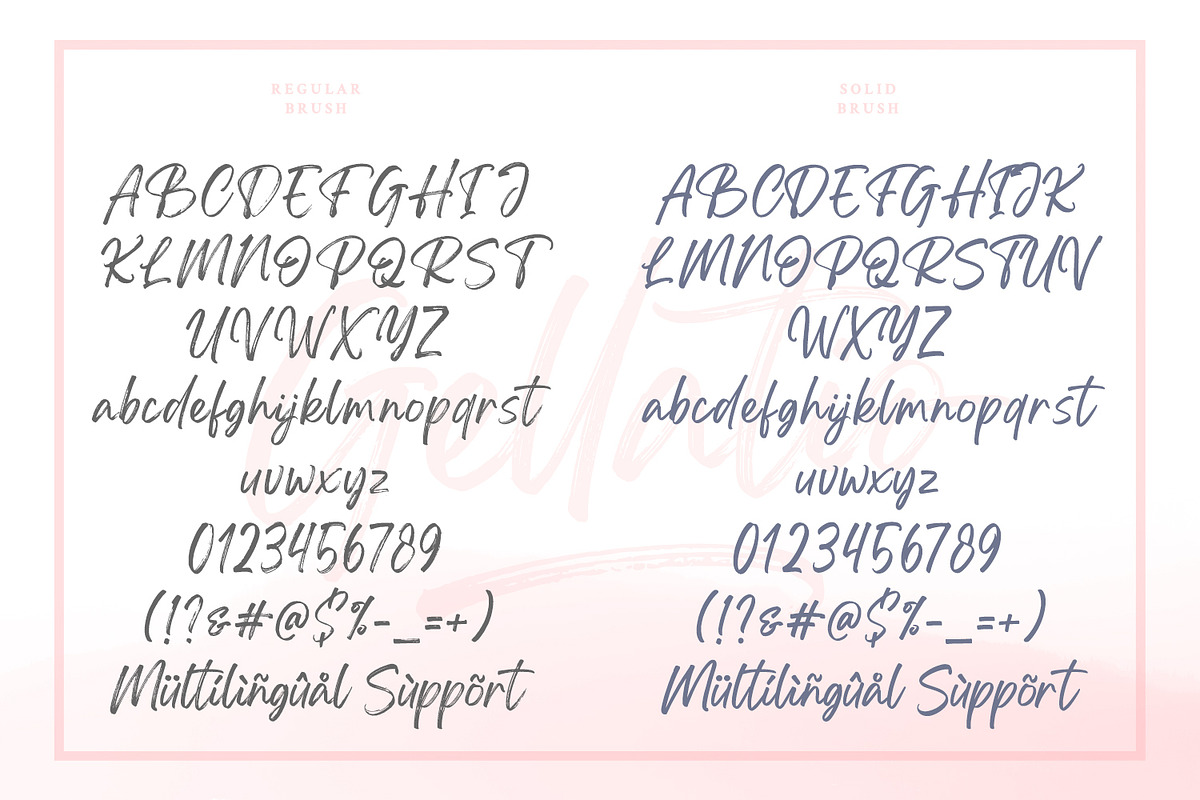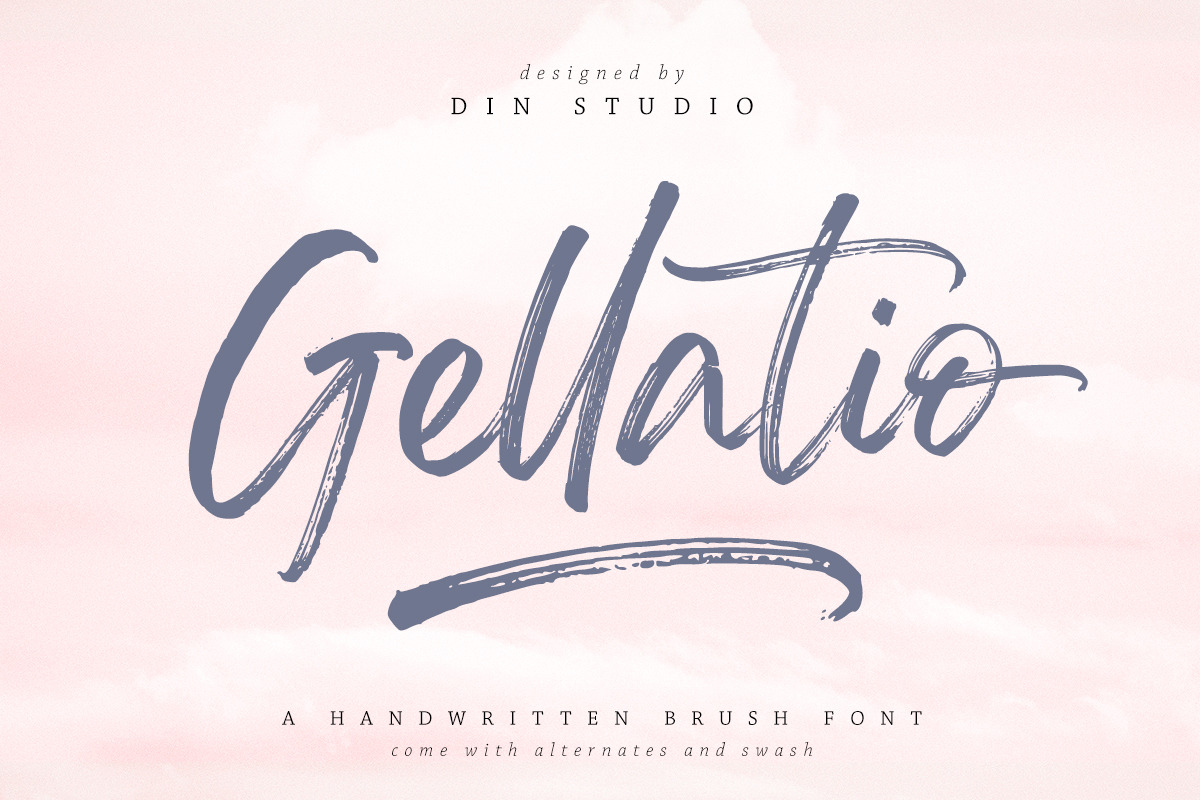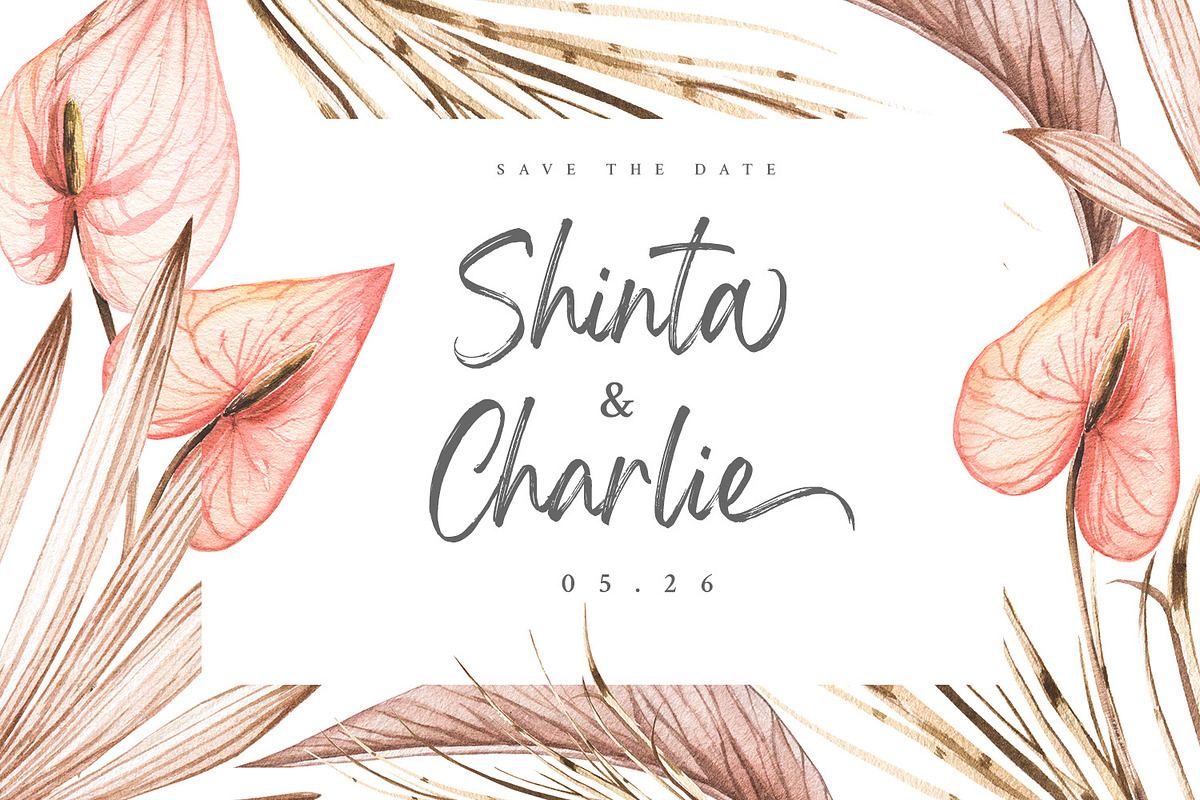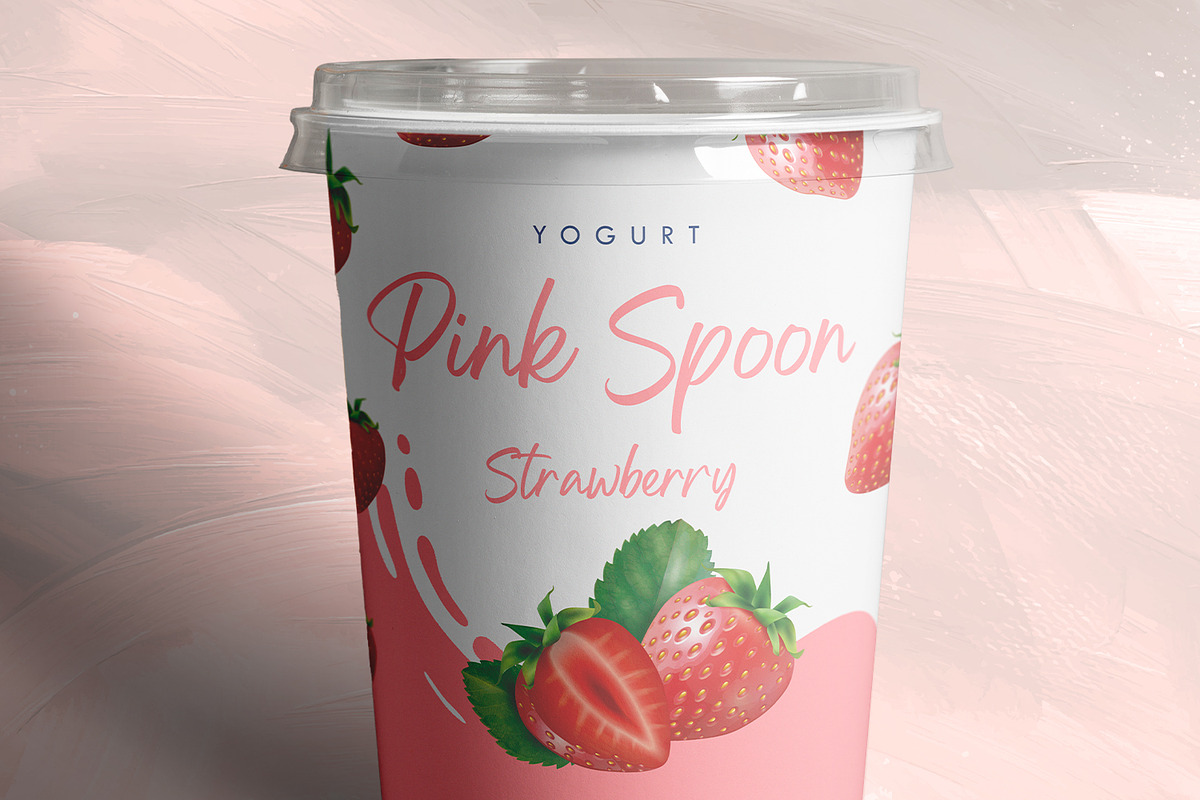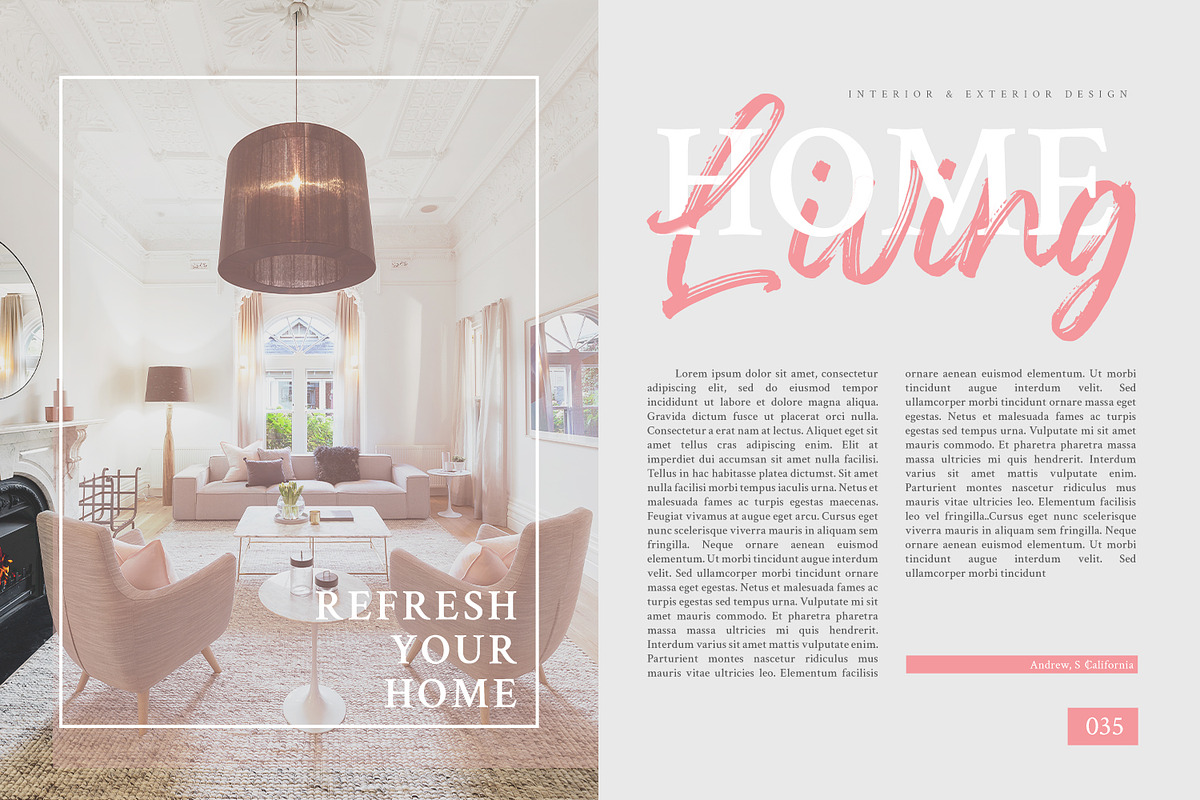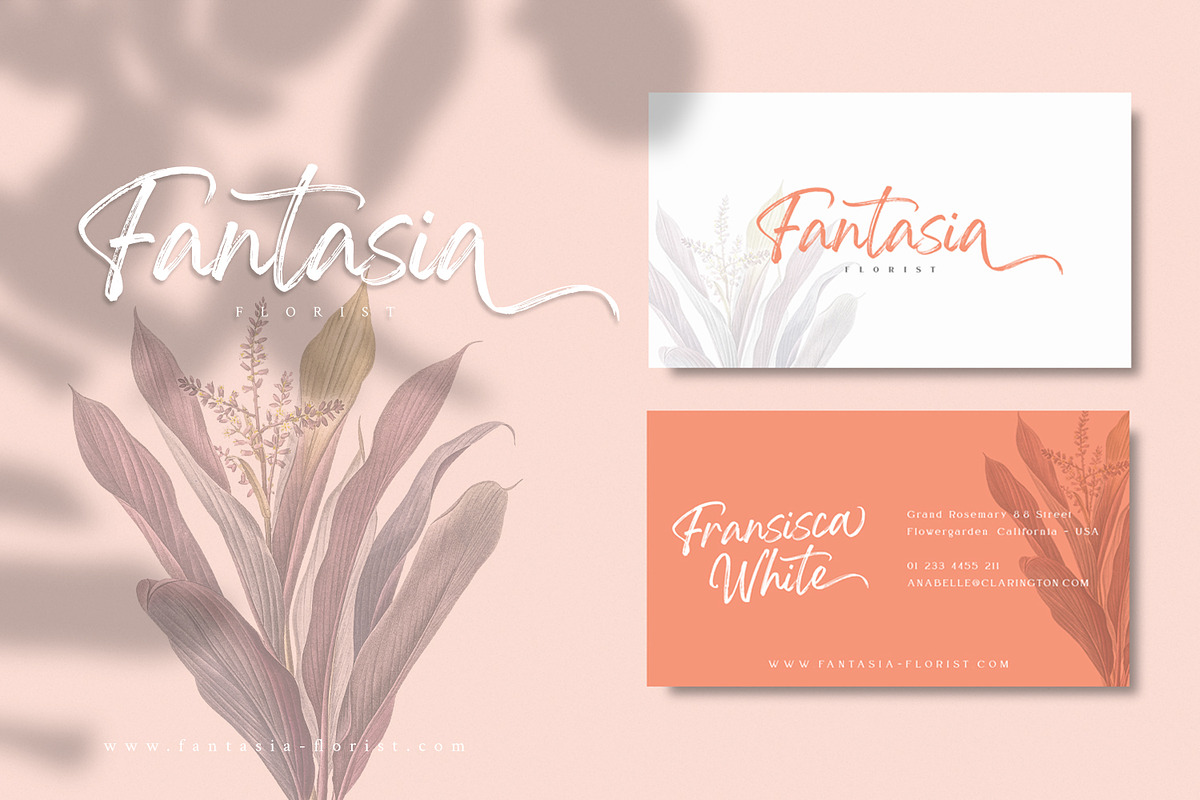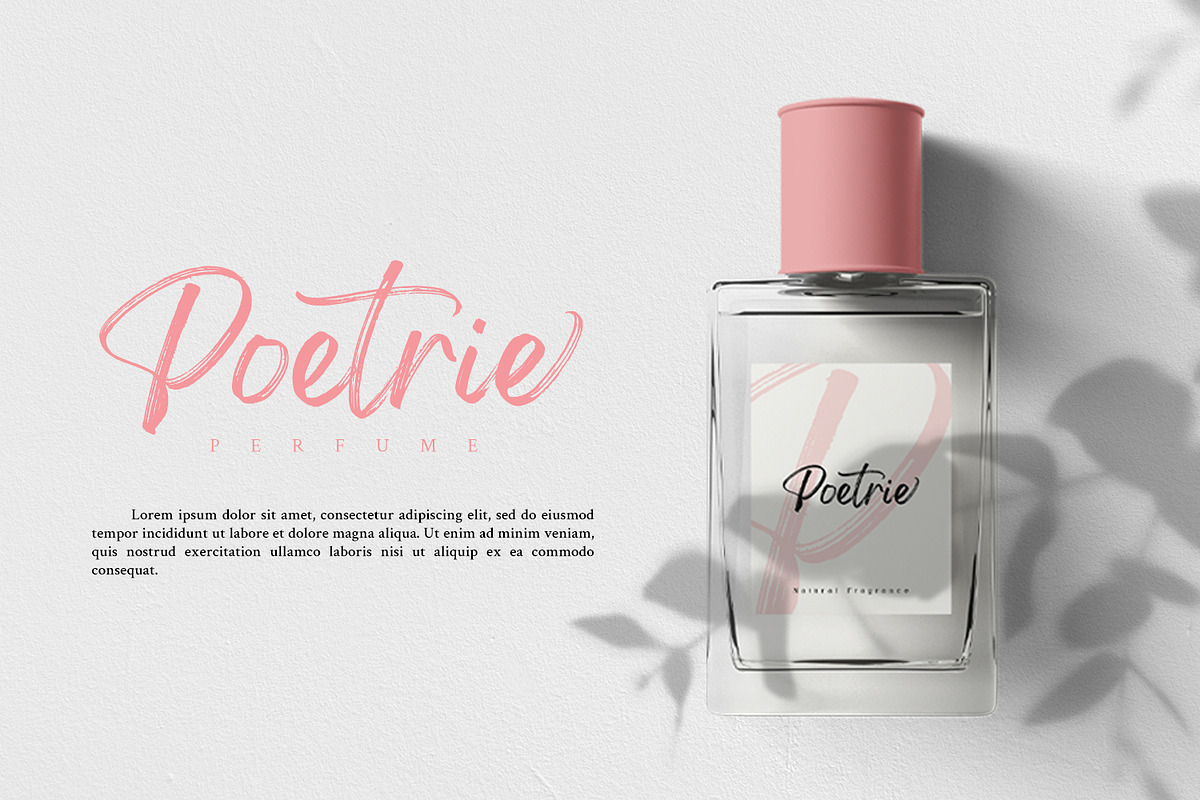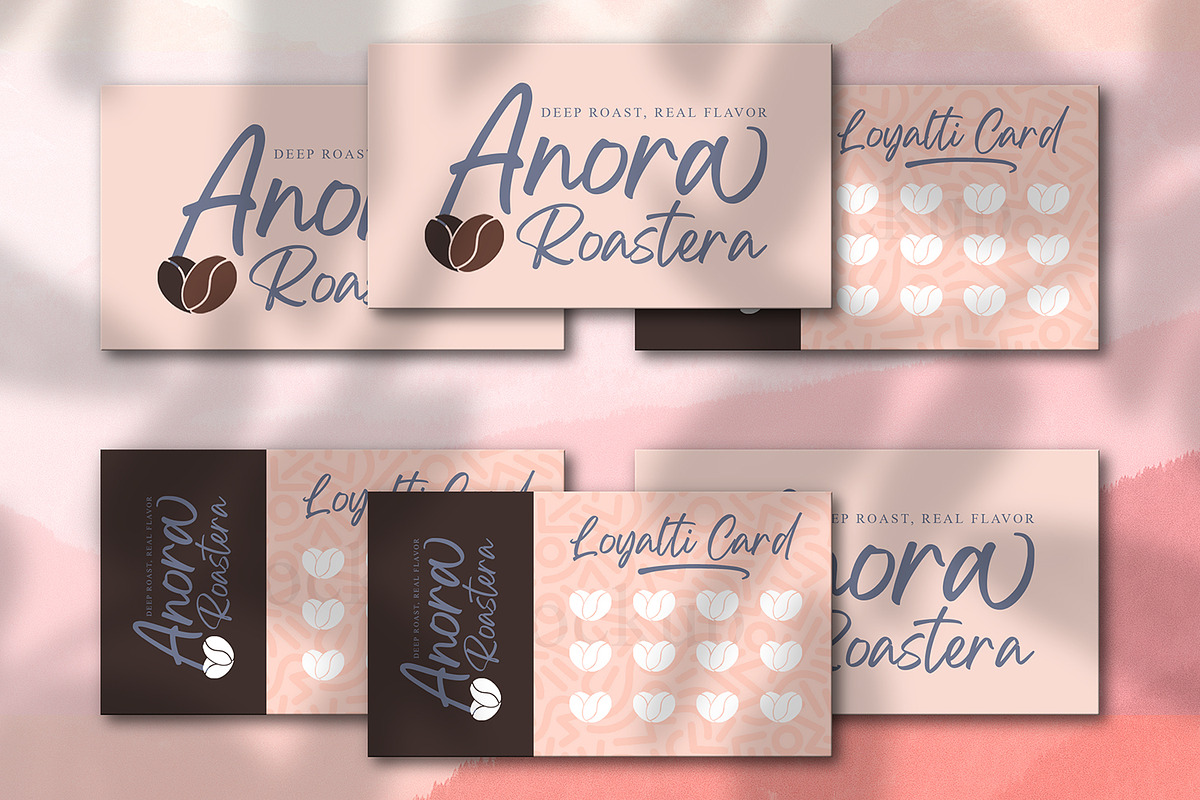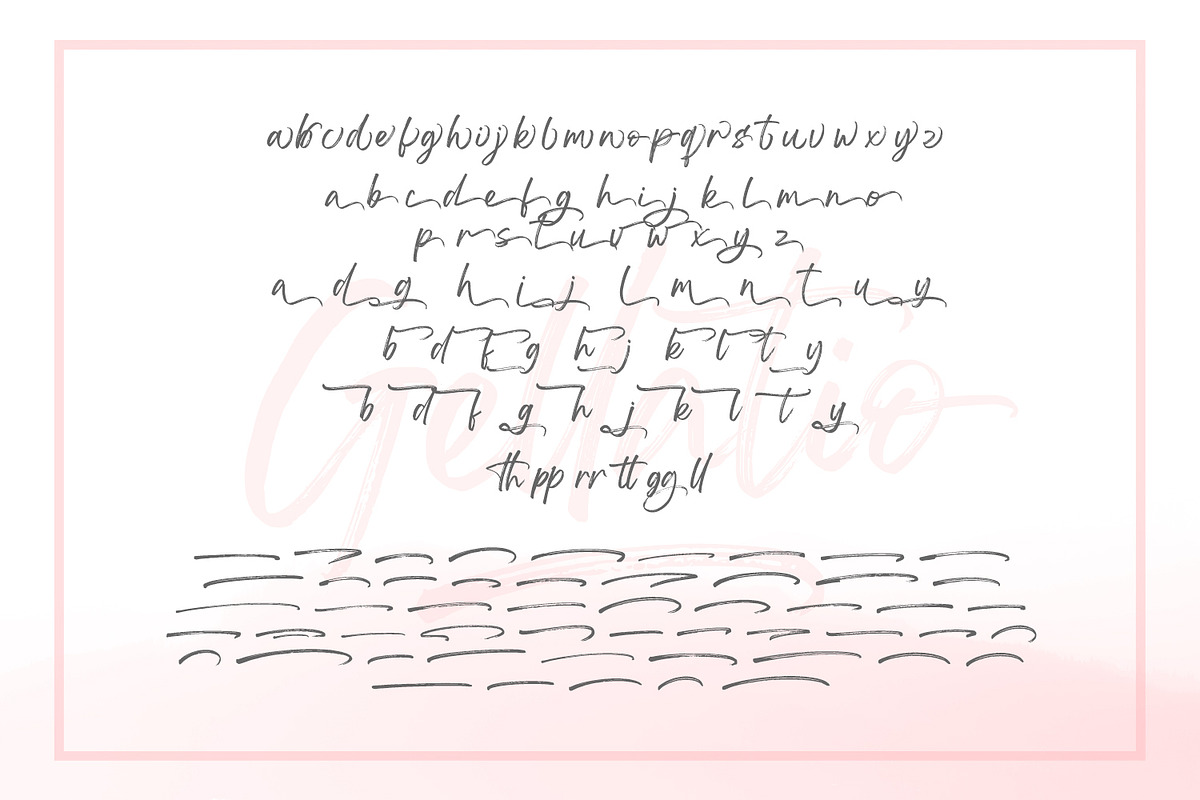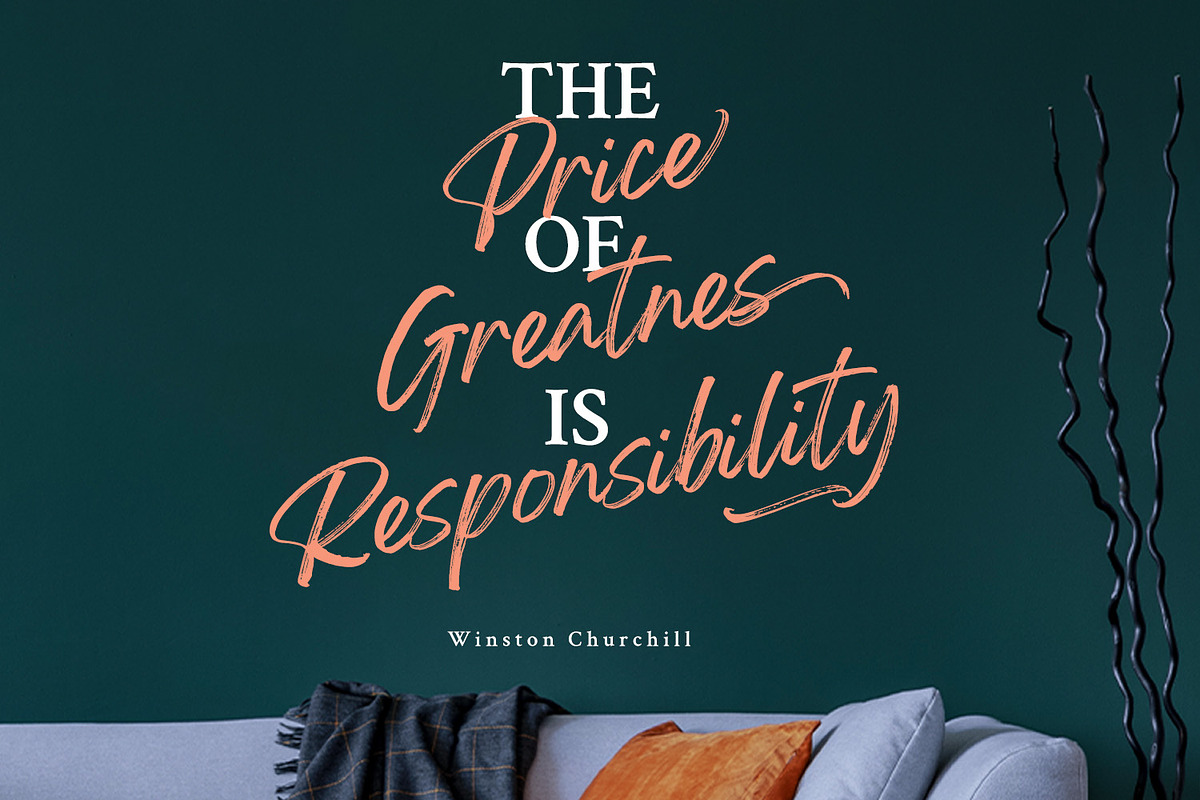
Gellatio - Chic Brush Font
Say Hello to the Gellatio Chic Brush Font. Made from natural hand brush. it will make your design project more beautiful. The font is suitable for various designs, such as posters, banners, logos, book covers, headings, printed products, merchandise, social media, and more. Find out more ways to use this font by taking a look at the font preview.
88 Beautiful Alternates
6 Beautiful Ligatures
52 Swashes
Multilingual Supports
Numerals and Punctuations